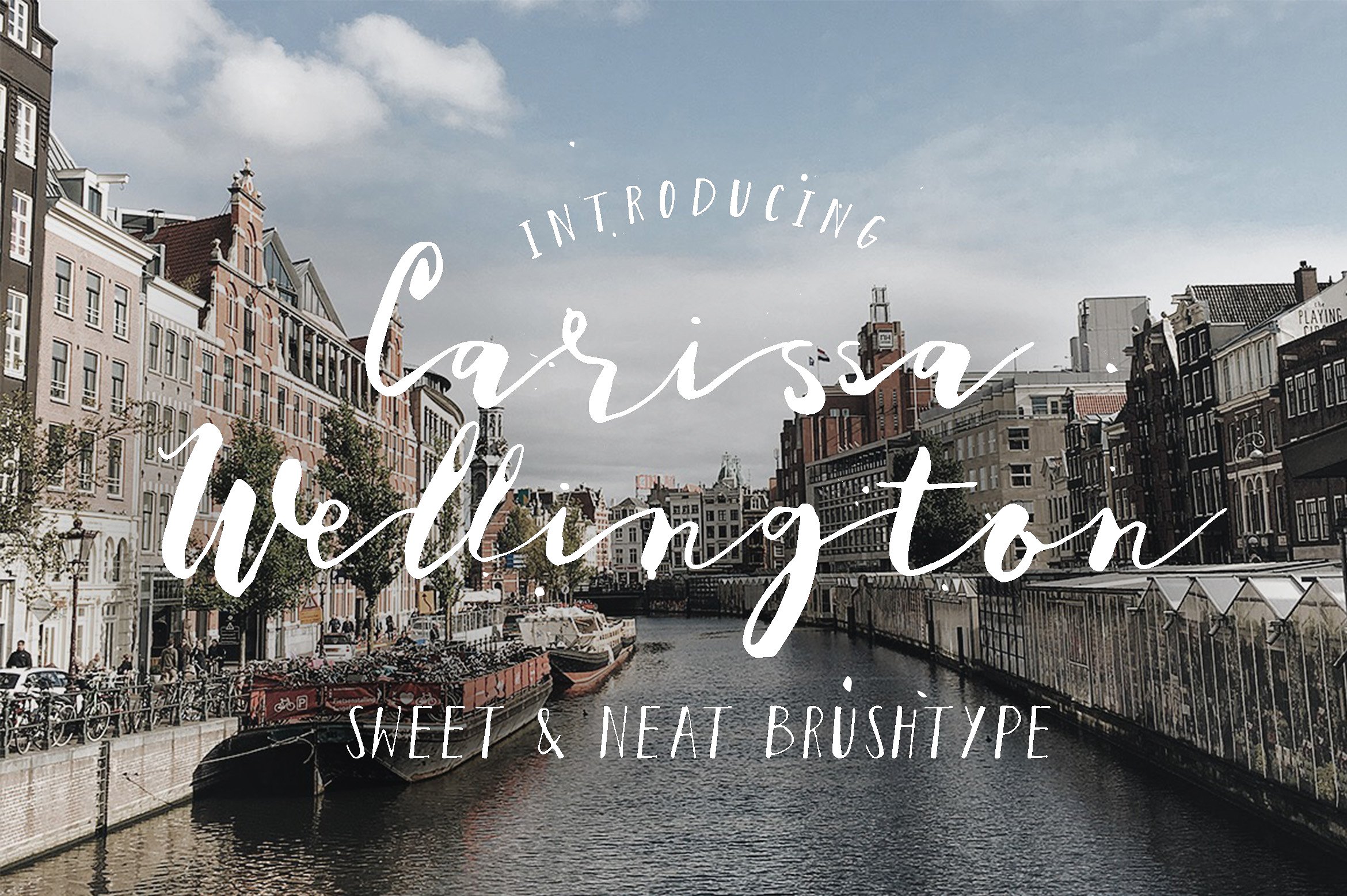
Carissa Wellington
Carissa Wellington Script Font
Carissa Wellington is a neat and feminine handwritten script font, created manually using brush pen. With a complete glyph available in the family, you can use Carissa Wellington to create greeting card title, signature for design work, badge and sticker, logo and return address, some cover design and so forth, you decide!
Carissa Wellington